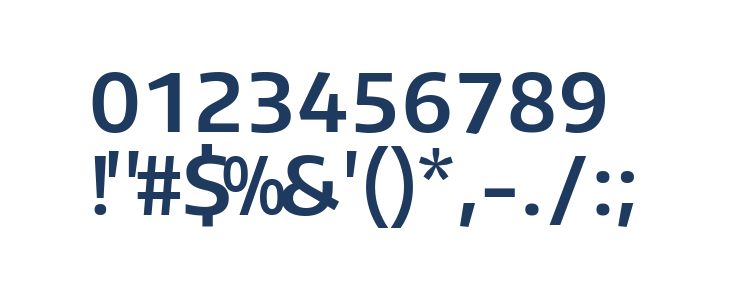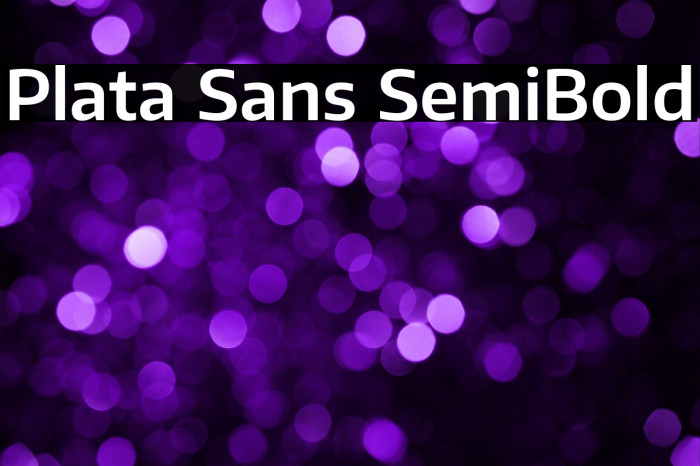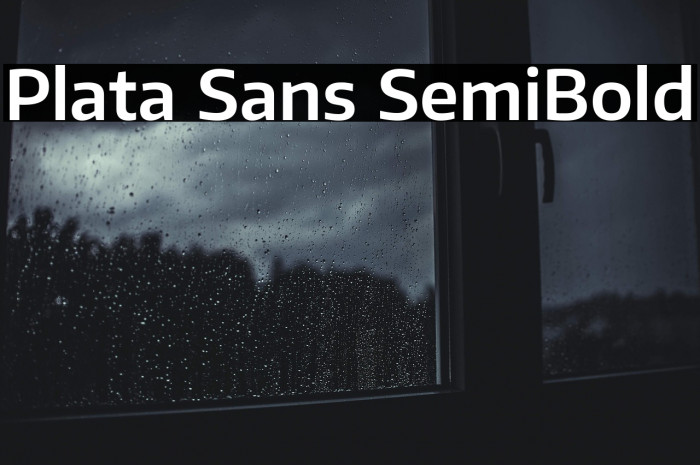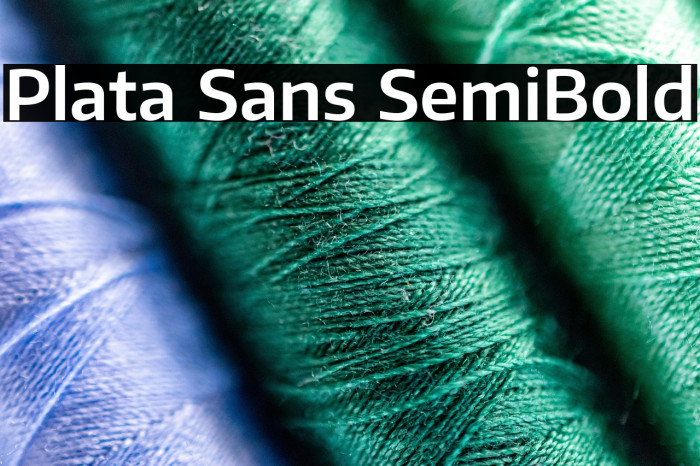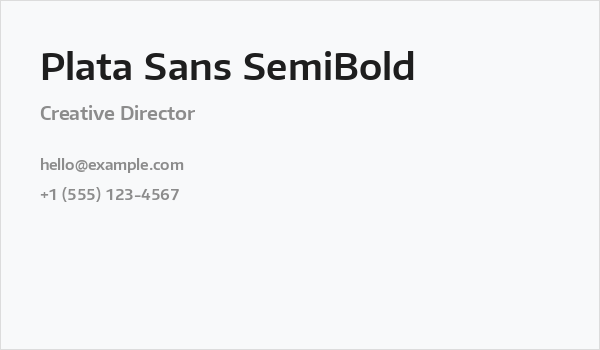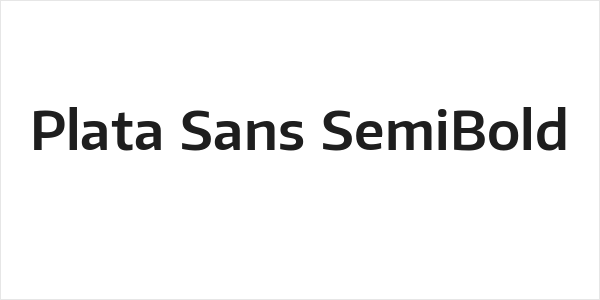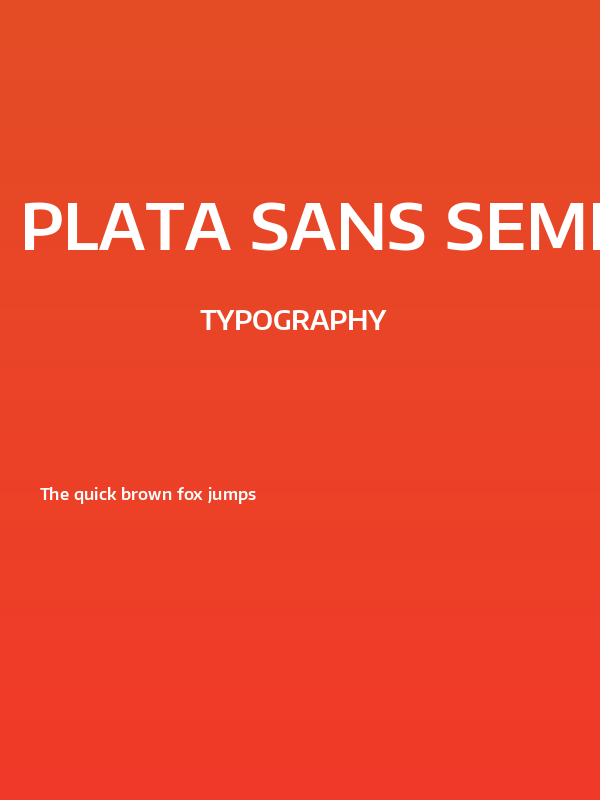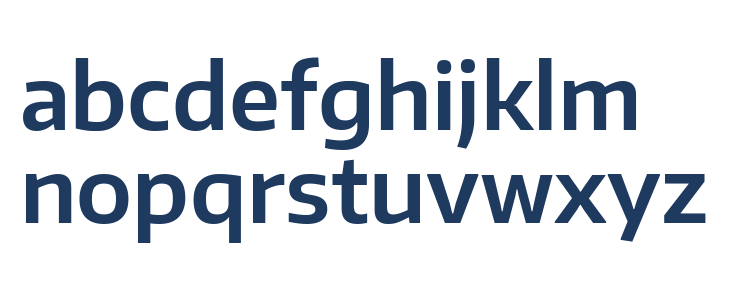
Plata Sans SemiBold Font
Plata Sans SemiBold Description
This font features a clean and modern sans-serif design, characterized by its semi-bold weight that provides a strong yet approachable appearance. The characters are well-proportioned, with a consistent stroke width that enhances readability. The uppercase letters are bold and assertive, while the lowercase letters maintain a friendly and inviting look. The numerals are clear and distinct, making them suitable for both text and numerical data presentation. Special characters are designed with precision, ensuring they complement the overall style of the font.
| Proposed Projects | Ideal for branding, advertising, web design, and editorial layouts where clarity and modernity are essential. |